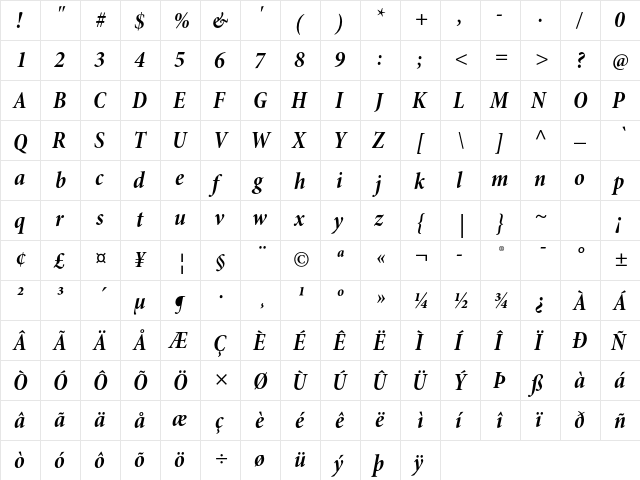
Minion Pro Bold Cond Italic Subhead
Bold Cond Italic Subhead ·  Robert Slimbach ·
DesignerRobert Slimbach
Design Context for Minion Pro Typeface
Minion Pro takes a measured approach to typography — its balanced proportions and neutral character make it a reliable workhorse for both digital and print work. The slanted form adds forward momentum and visual energy. The heavy weight commands attention and anchors typographic hierarchies. The condensed width makes it efficient for tight spaces without sacrificing legibility.
Pro Tip: Try Minion Pro for annotation and caption copy alongside an upright companion — the contrast in angle creates a dynamic but ordered typographic system.